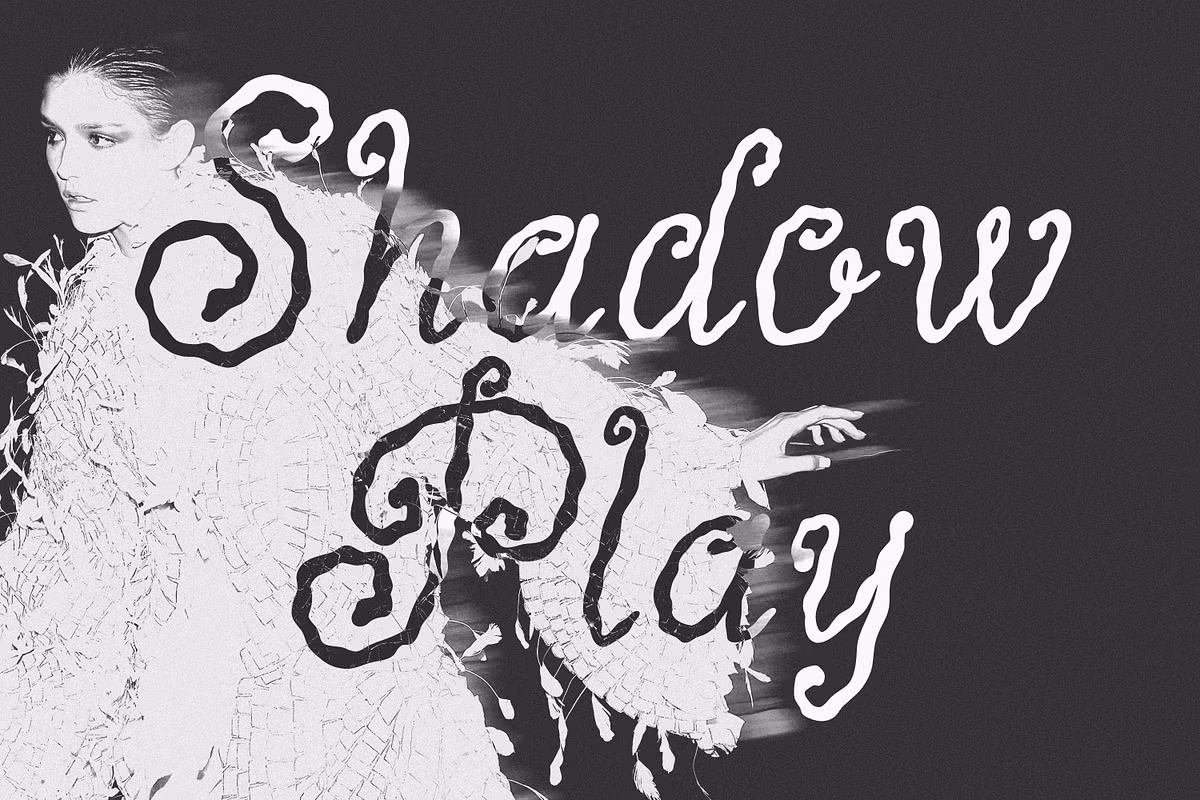
Ombre Handwritten Wavy Art Font: Elegant Typeface for Fashion Design
Ombre Handwritten Wavy Art Font
Ombre Handwritten Wavy Art Font: Elegant Typeface for Fashion Design
The Ombre font is really beautiful and has a lot of style. It’s a handwritten font that looks elegant and artistic, making it perfect for modern design projects. The lines are textured and expressive, which gives any work a refined touch. If you’re designing a logo, laying out a magazine, or creating packaging, the Ombre font is a great choice because it grabs people’s attention in a unique way. It’s inspired by the look of fashion magazines, which makes it really stylish. Overall, the Ombre font is a great way to add some elegance and flair to your designs.
Stylish example of the Ombre font in use
Ombre font showcasing its elegant style.
Design Style of Ombre Font
The Ombre font has a really unique style that’s all about smooth, curvy lines – it’s like the fancy writing you’d see in a handwritten note. Every letter is carefully designed to look super elegant and high-end. This font is great for projects where you want to stand out and look different, like when you’re creating a brand for a fashion company or designing a magazine. The way it looks is just so expressive and special, it’s perfect for making a statement.
The Ombre font has a really unique look that helps it stand out from the rest. It’s more than just a font, it’s a way to show off your style. The way the characters flow into each other adds a cool dynamic touch to your design, grabbing the viewer’s attention and making the whole project look better. This font is perfect for making a statement and adding some extra flair to your work. Whether you’re working on a big project or just a small one, the Ombre font can help you make it look amazing. Its artistic appearance and fluid characters make it a great choice for anyone who wants to add a little something extra to their design. The ombre effect, from which the font derives its name, can also evoke feelings of depth and dimension, enriching the visual experience and adding layers of meaning to the text it represents.
Close-up view of Ombre font characters
Detailed look at the Ombre font’s fluid characters.
Character Sets and Versatility
The Ombre font really stands out with its huge collection of characters. It works with lots of languages, like Latin and special symbols, which makes it super useful for design projects all around the world. Because it has so many characters, you can easily change it to fit different languages, so your designs can be understood by anyone, no matter where they’re from. This font is great for global projects because it can be used in many different ways, and it’s easy to make it work for your specific needs. Whether you’re designing for a local or international audience, the Ombre font is a great choice because it’s so versatile and can be adapted to suit many different languages and cultures.
This flexibility is really useful for designers who work with people from different countries or want to make projects that can be used in many languages. The Ombre font helps you keep a consistent look for your brand, while also being able to adapt to different markets, which makes it a very valuable tool to have. It’s great for creating a unified image, no matter where your project is being used. Additionally, the expressive lines of the Ombre font enhance its adaptability, allowing it to be used in a variety of contexts, from luxury branding to casual lifestyle projects.
Examples of versatile uses of the Ombre font
Versatile applications of the Ombre font.
Use Cases for Ombre Font
The Ombre font is ideal for a wide range of applications, making it a must-have for designers in various fields. Here are some prominent use cases:
• Logos and Monograms: The beautiful, flowing lines of the Ombre font make it a great choice for creating logos, where you need a special and memorable look that stands out.
• Magazine Covers: With its artistic flair, the Ombre font can create stunning headlines and titles, drawing readers’ attention and enhancing the overall layout.
• Fashion Branding: As a font inspired by fashion-editorial aesthetics, it is an excellent choice for clothing brands, allowing them to convey their style and ethos through typography.
• Wedding and Lifestyle Projects: The romantic and sophisticated qualities of the Ombre font make it perfect for invitations, save-the-dates, and other wedding-related materials.
• Packaging: The unique look of the Ombre font can elevate product packaging, making it stand out on shelves and attract potential buyers.
• Posters: Creative and eye-catching, the Ombre font is an ideal choice for posters that aim to capture attention and convey a strong message.
With such diverse applications, the Ombre font is a valuable asset for any designer looking to elevate their work.